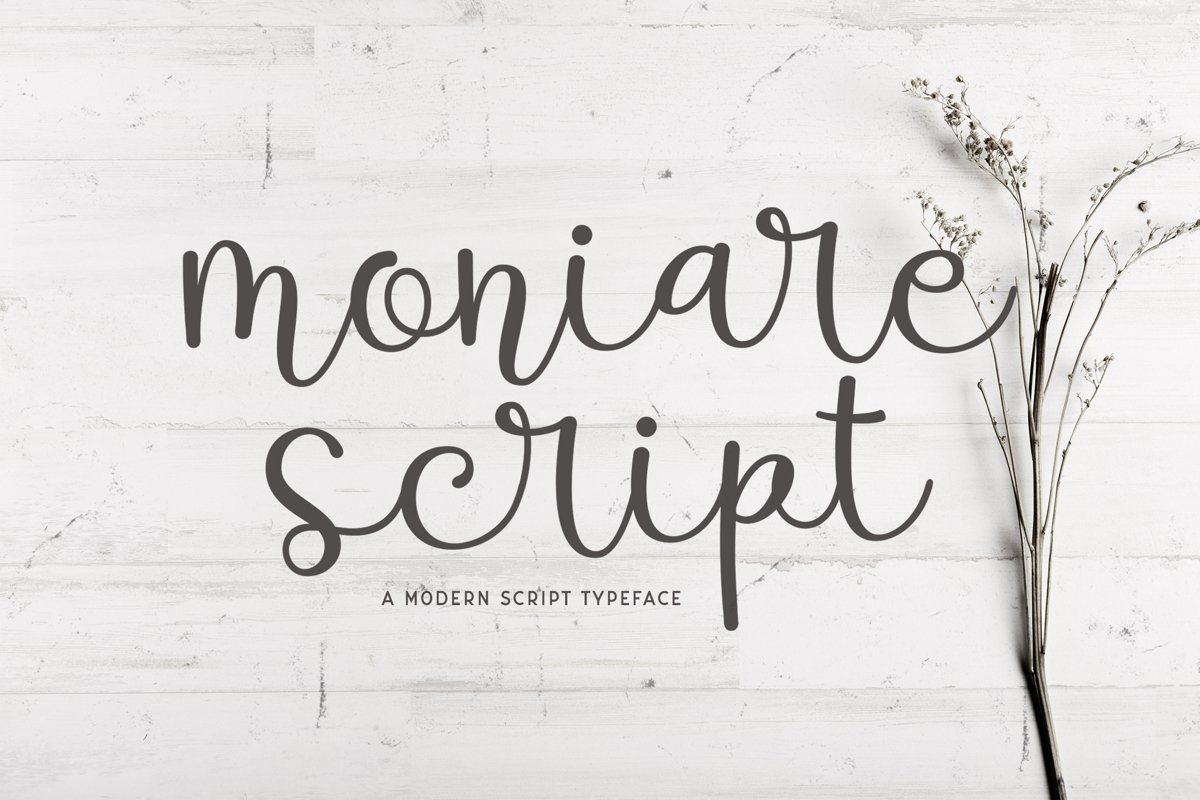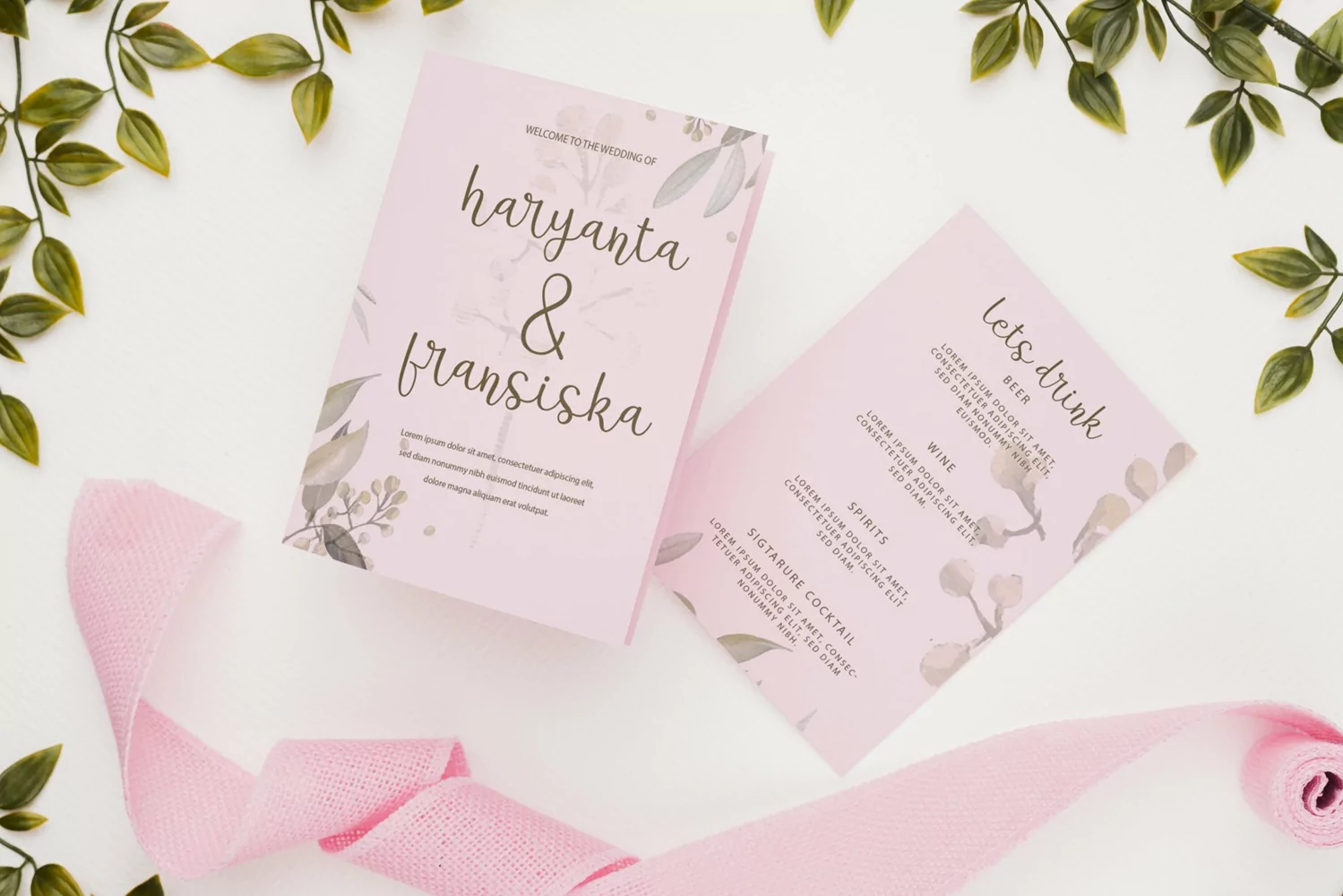
Moniare is a modern script typeface. Perfect for display, quotes, product, branding, logo, logotype, florist needs, business card, packaging, merchandise, header, wedding needs, crafting needs, and many more.